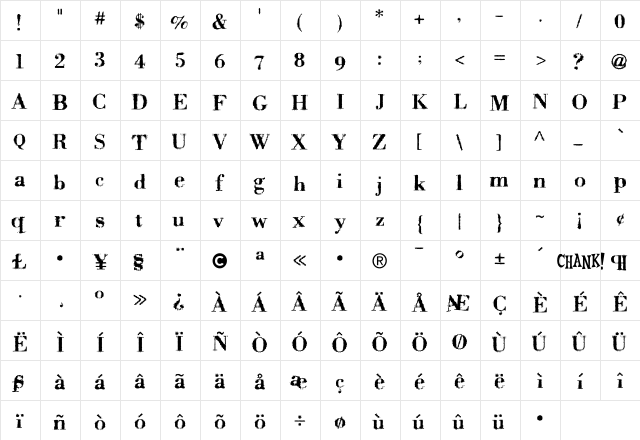
Badoni Regular
Design Context for Badoni Typeface
Badoni offers clean, dependable letterforms without strong stylistic allegiance, making it a practical choice for designers who need flexibility.
Pro Tip: Use Badoni in both headline and body roles to test its range before committing to a single application.